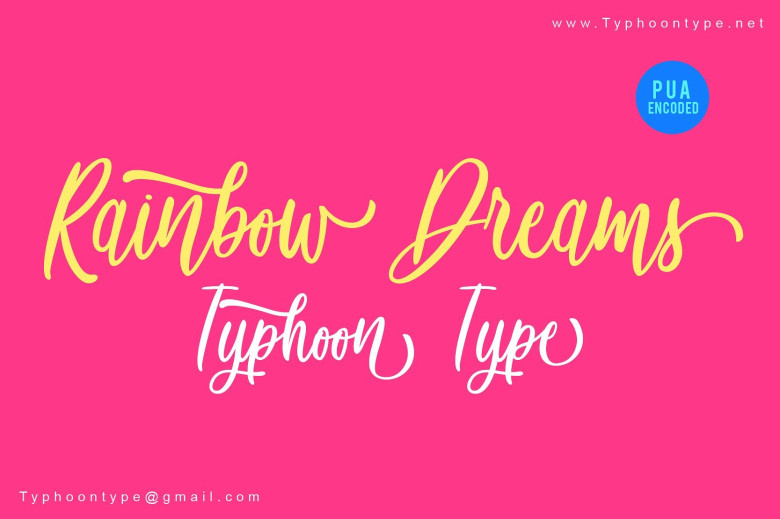
Rainbow Dreams Script Font
Hello! Introducing Rainbow Dreams Font! Rainbow Dreams Script Font | A fresh organic hand-written casual script font. This font are perfect for wedding invitation or your blog. Also with their help, you can create a logo or beautiful frame for your home. Or just use for your small business, book covers, stationery, marketing, magazines and more.